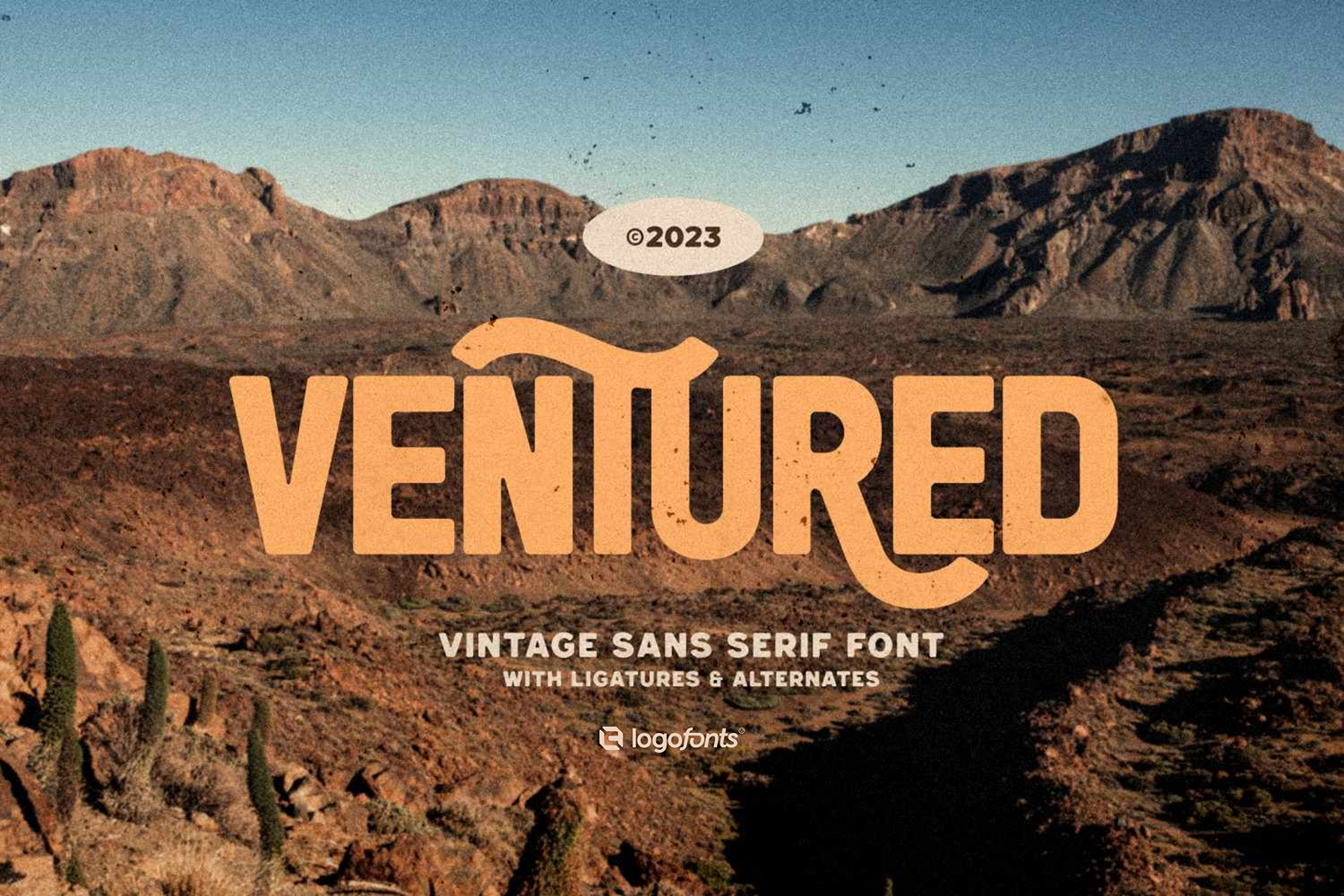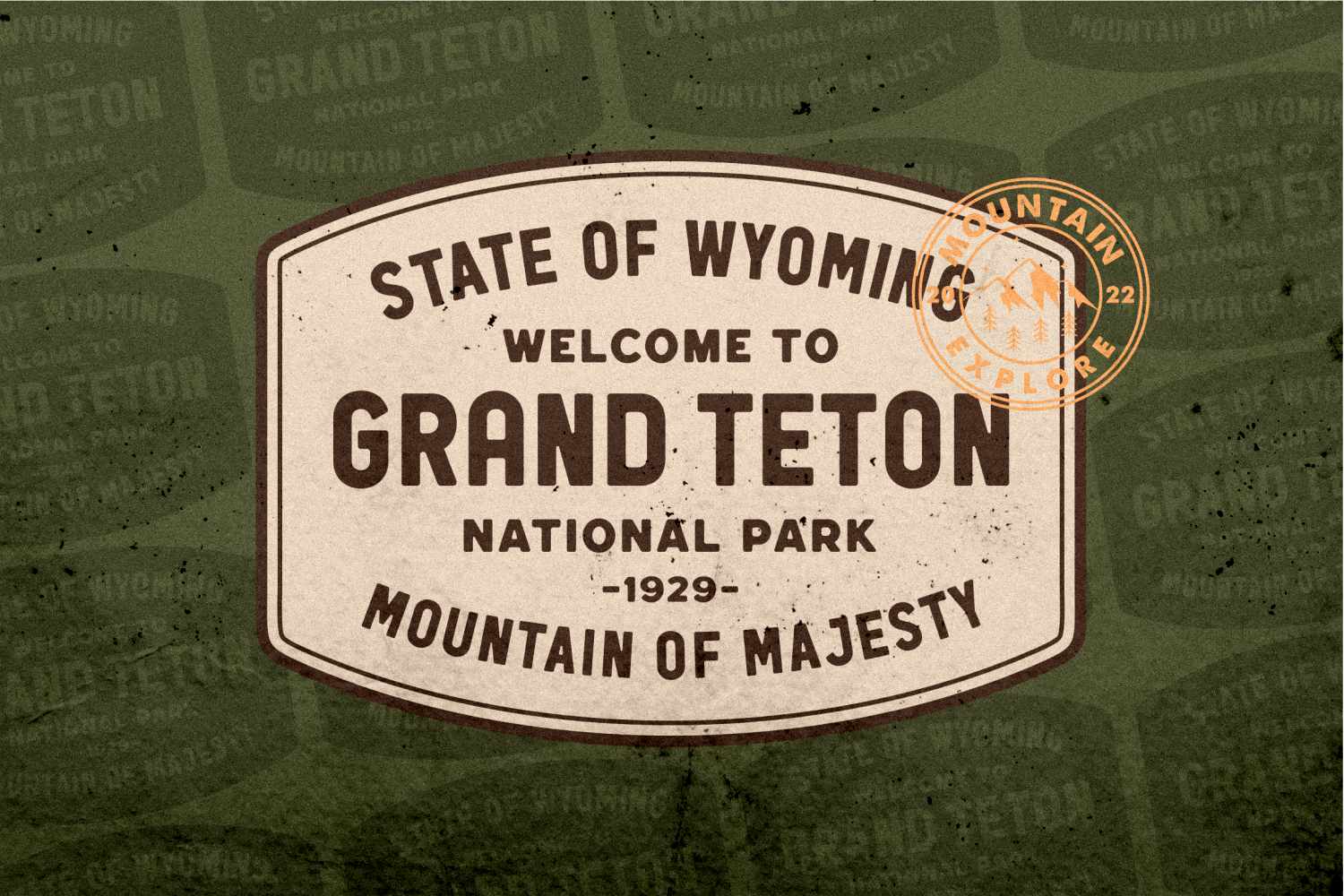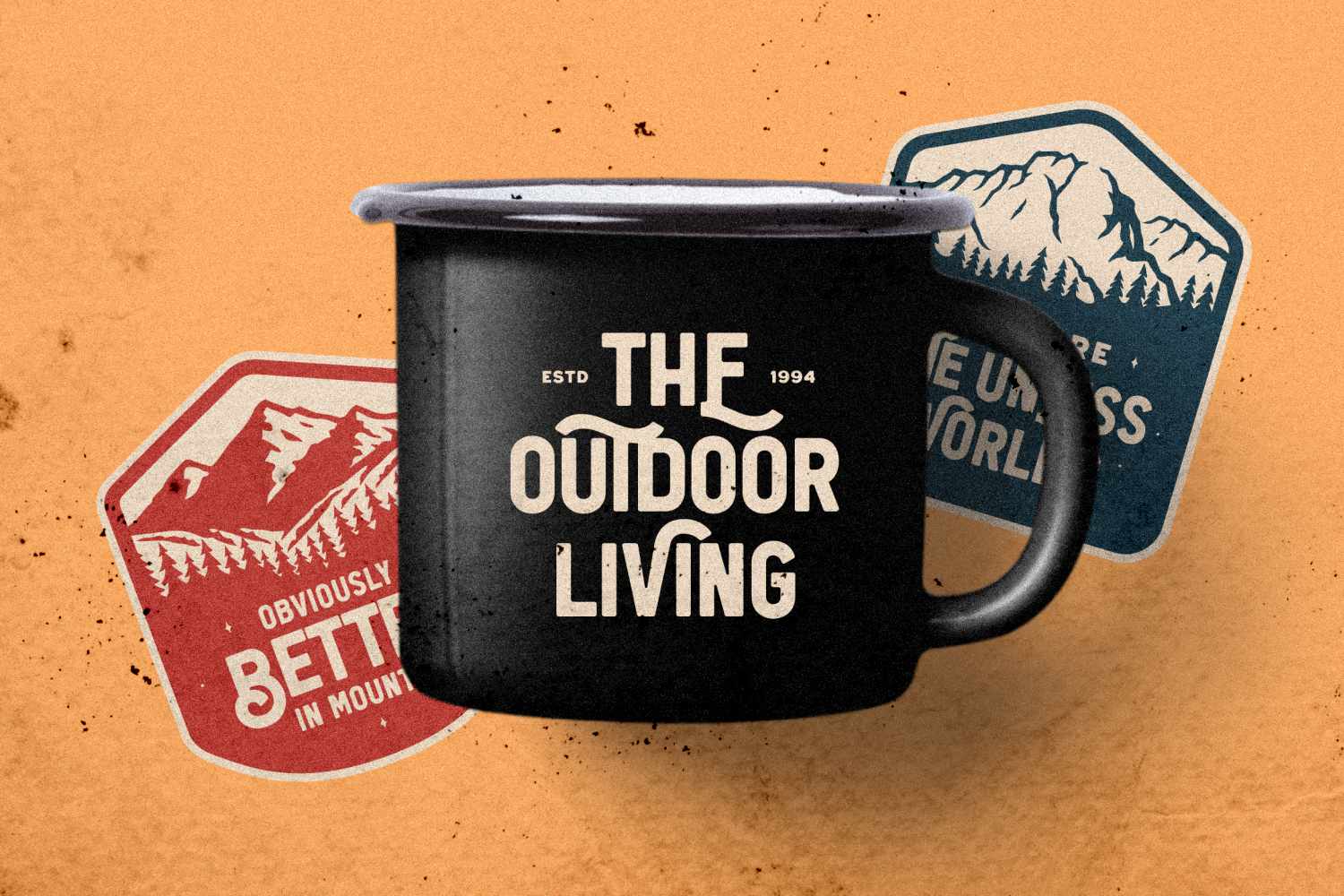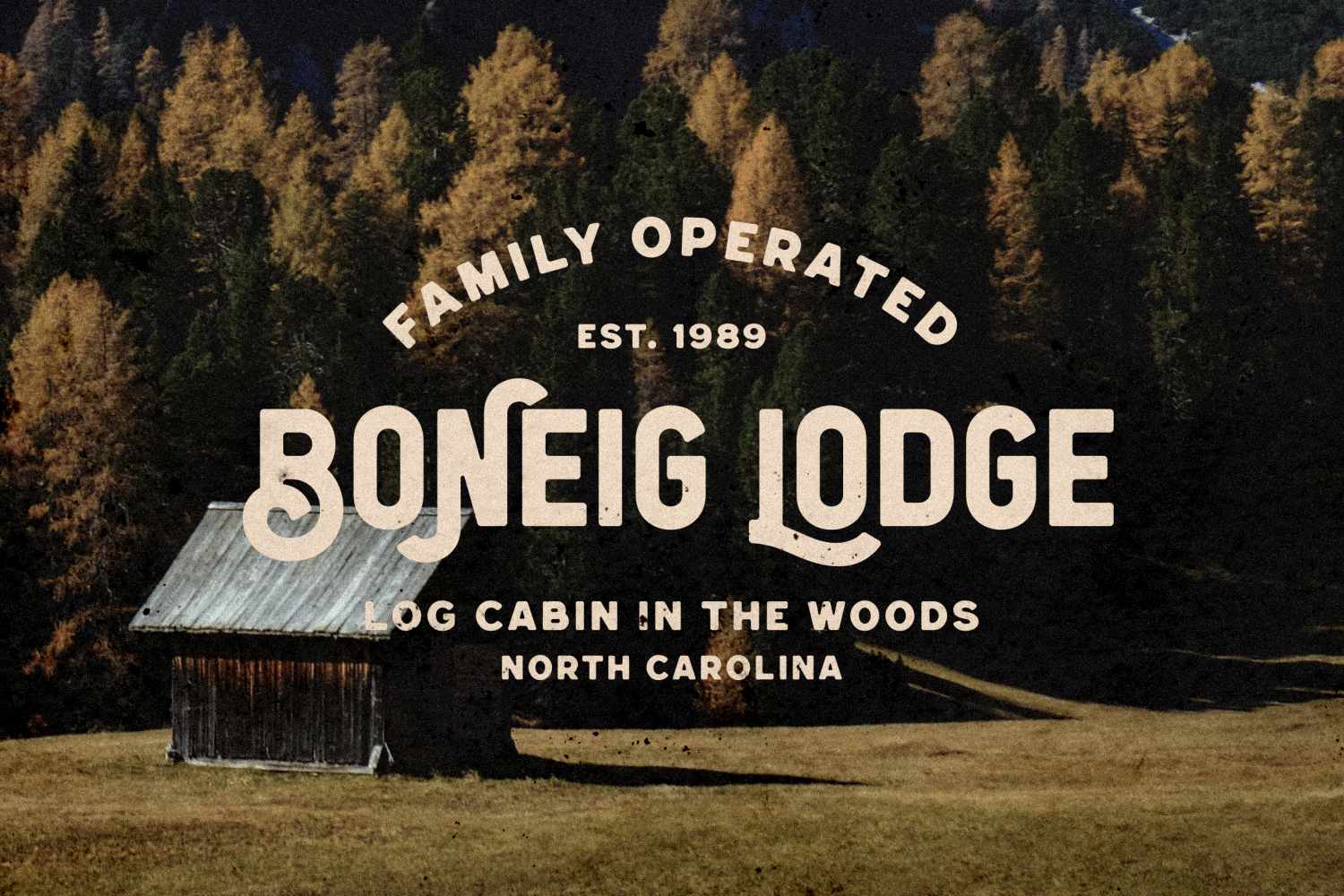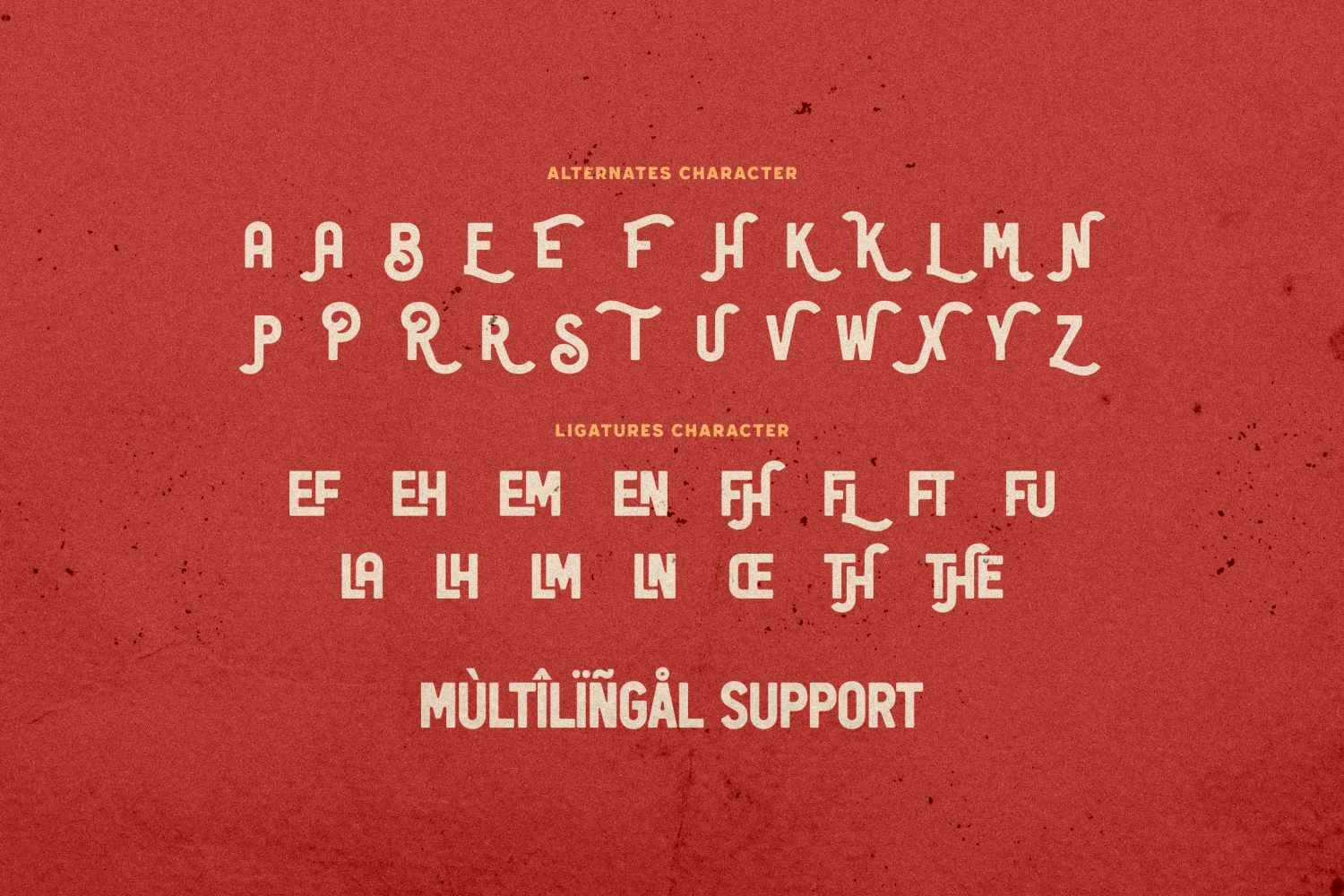
Ventured is a bold vintage sans serif font crafted for explorers, makers, and brands that embrace a rugged outdoor spirit. Featuring distinctive ligatures and alternate characters, this typeface combines timeless Americana aesthetics with subtle modern curves. Its solid form and bold structure evoke classic travel signage, park labels, and rustic branding – perfect for everything from logos to merchandise.
With multilingual support and a full set of alternates, Ventured offers flexibility and style to bring personality to your design work. Whether you’re working on adventure branding, wilderness gear packaging, or retro-themed marketing, this font adds warmth, authenticity, and handcrafted character to any layout.